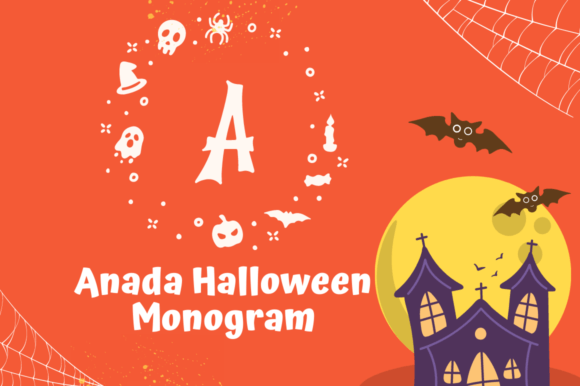
Attention all Halloween enthusiasts, creatives, and design aficionados!
Introducing the Anada Halloween Monogram Font, a chilling masterpiece that will cast a spellbinding aura over your designs. This meticulously crafted font family belongs to the esteemed decorative genre, making it the perfect choice for a wide range of spine-tingling creations.
Prepare to be captivated by its haunting strokes and spine-crawling curves, designed to evoke the essence of All Hallows' Eve. Let your imagination run wild as you weave this font's haunting charm into your Halloween-themed projects.
Anada Halloween Monogram is not just a font; it's a portal to a realm of eerie elegance. Picture yourself designing invitations adorned with its ominous script, crafting logos that exude a touch of the supernatural, or creating social media posts that will send shivers down your followers' spines.
This font is a creative catalyst, empowering you to unleash your inner ghoul and bring your Halloween visions to life. Let its ghostly whispers inspire you to create truly unforgettable designs that will haunt your audience long after the candy has been consumed.